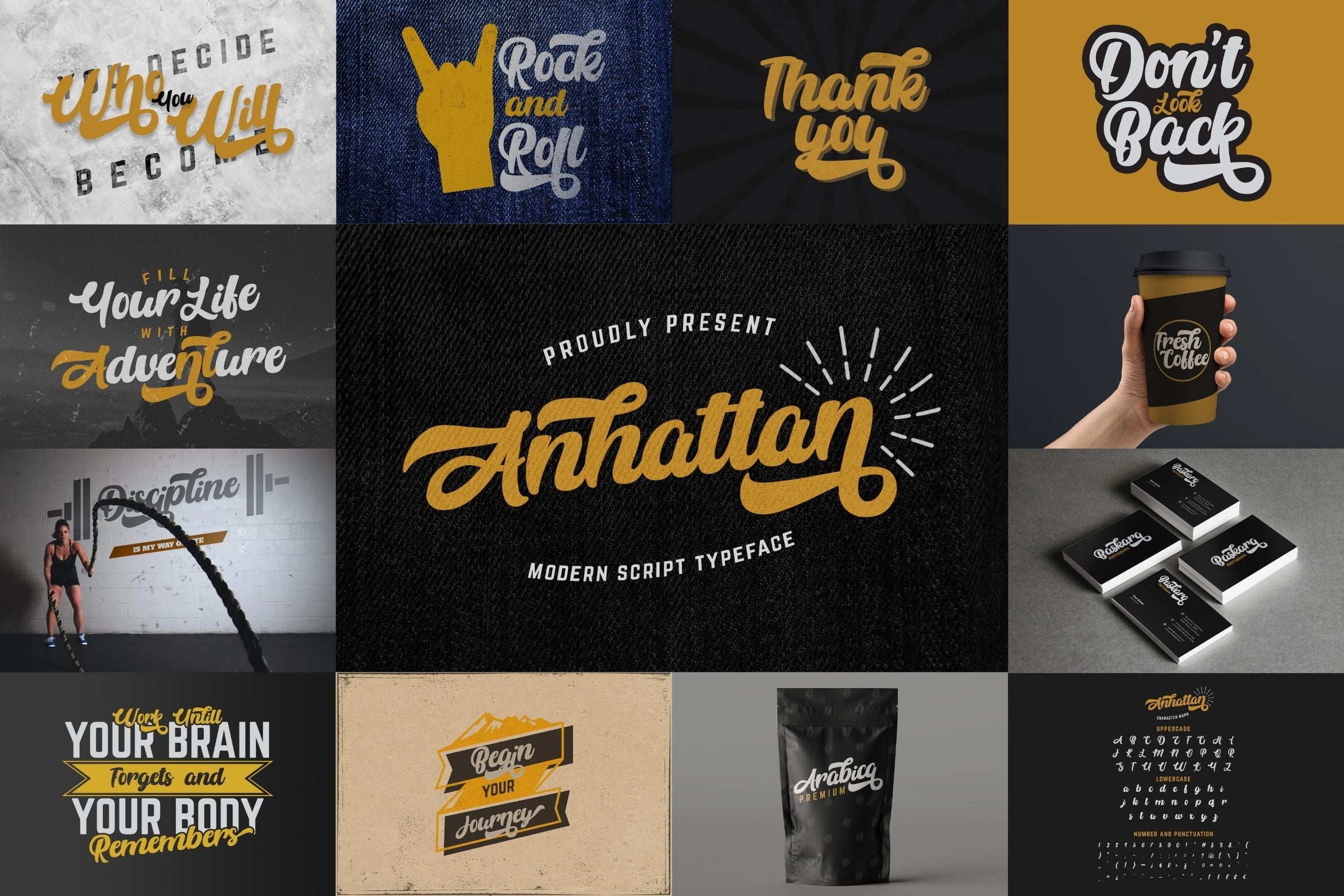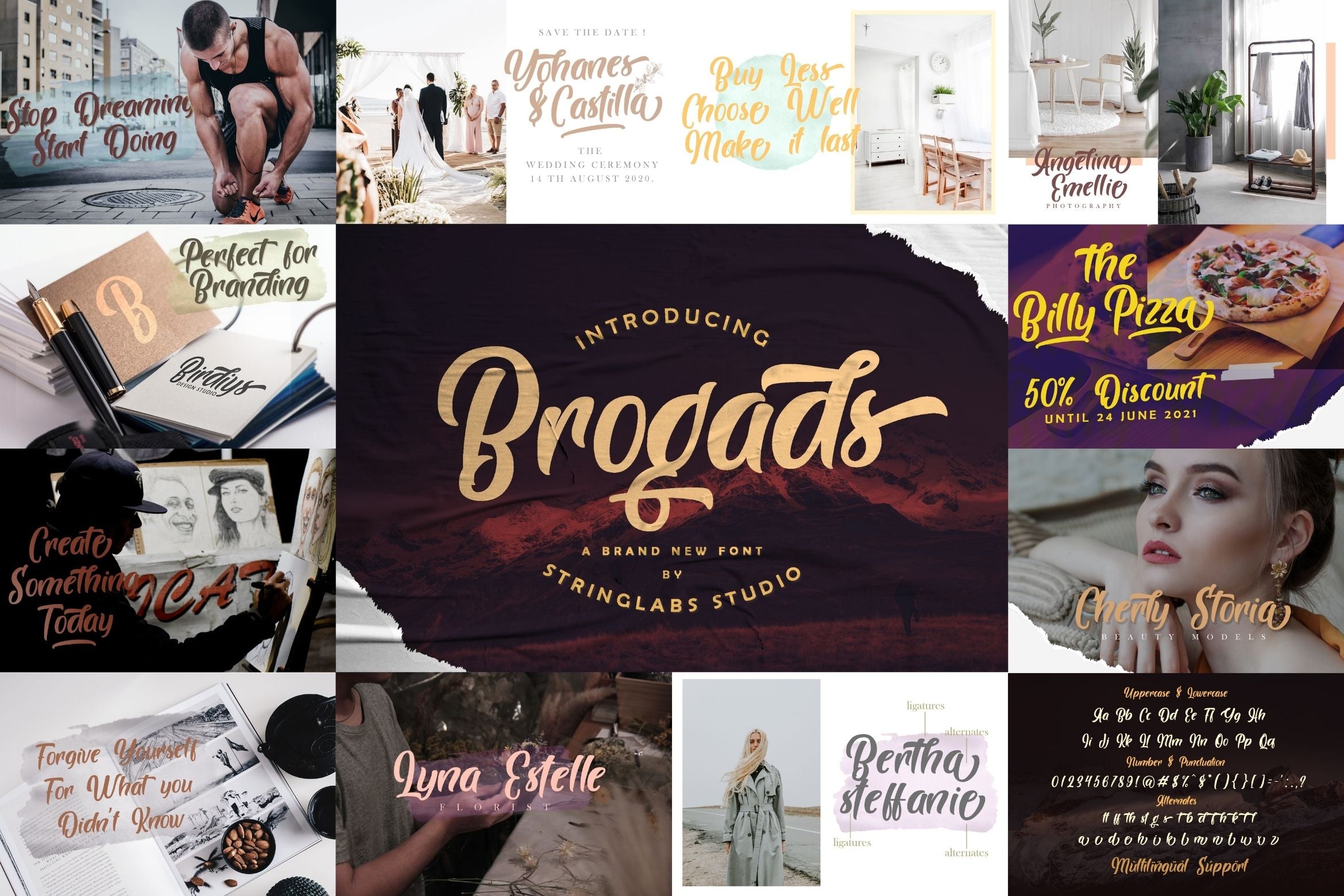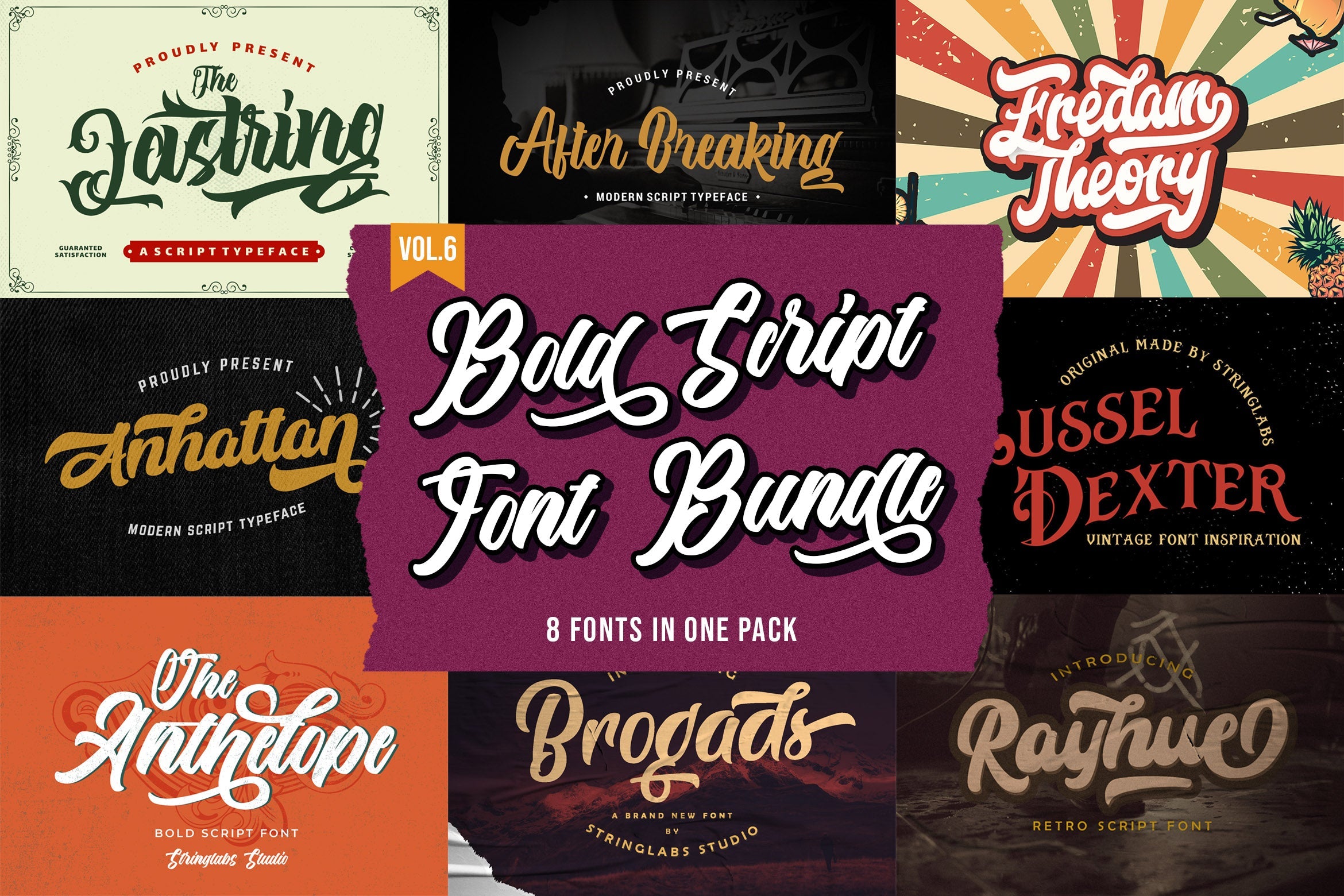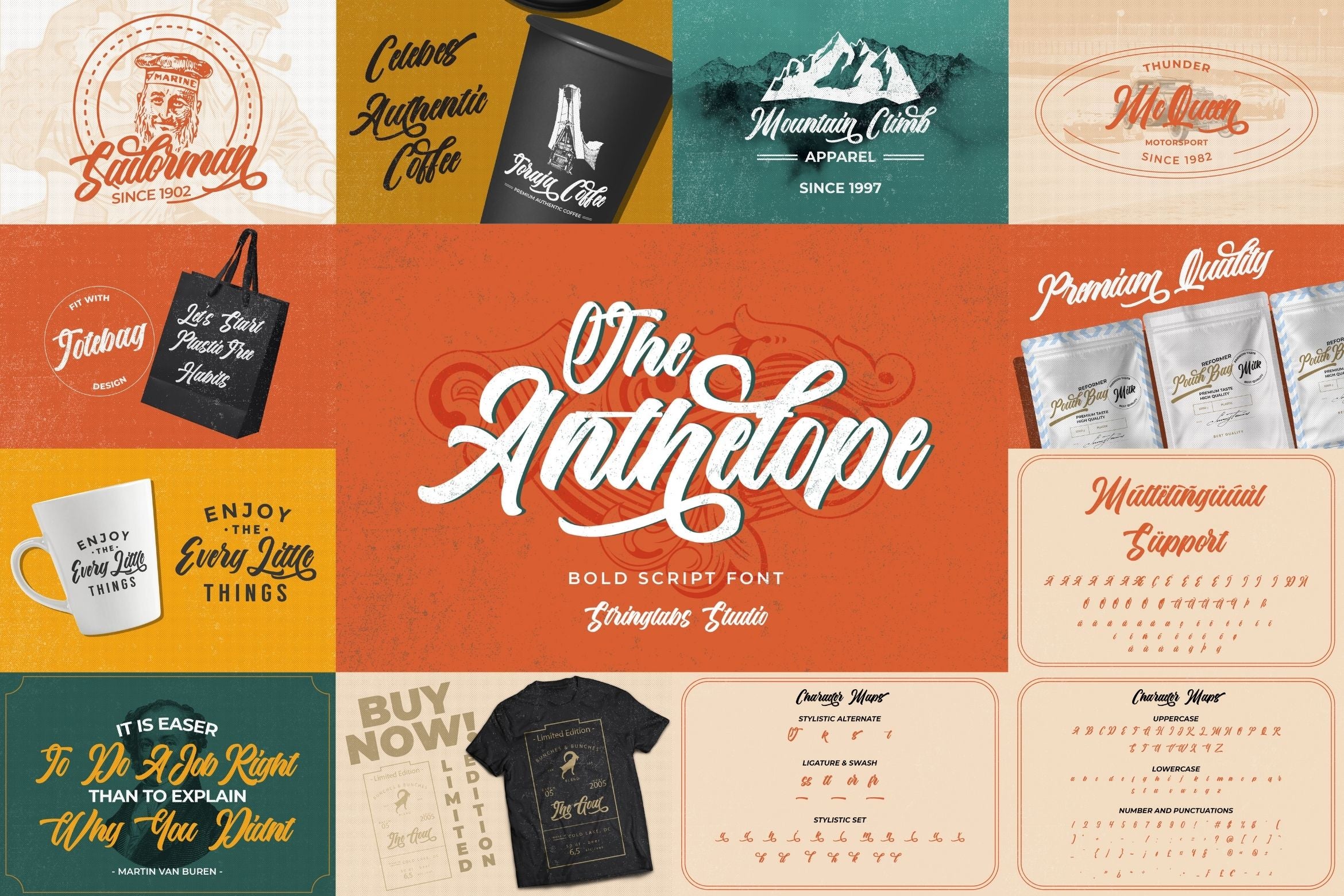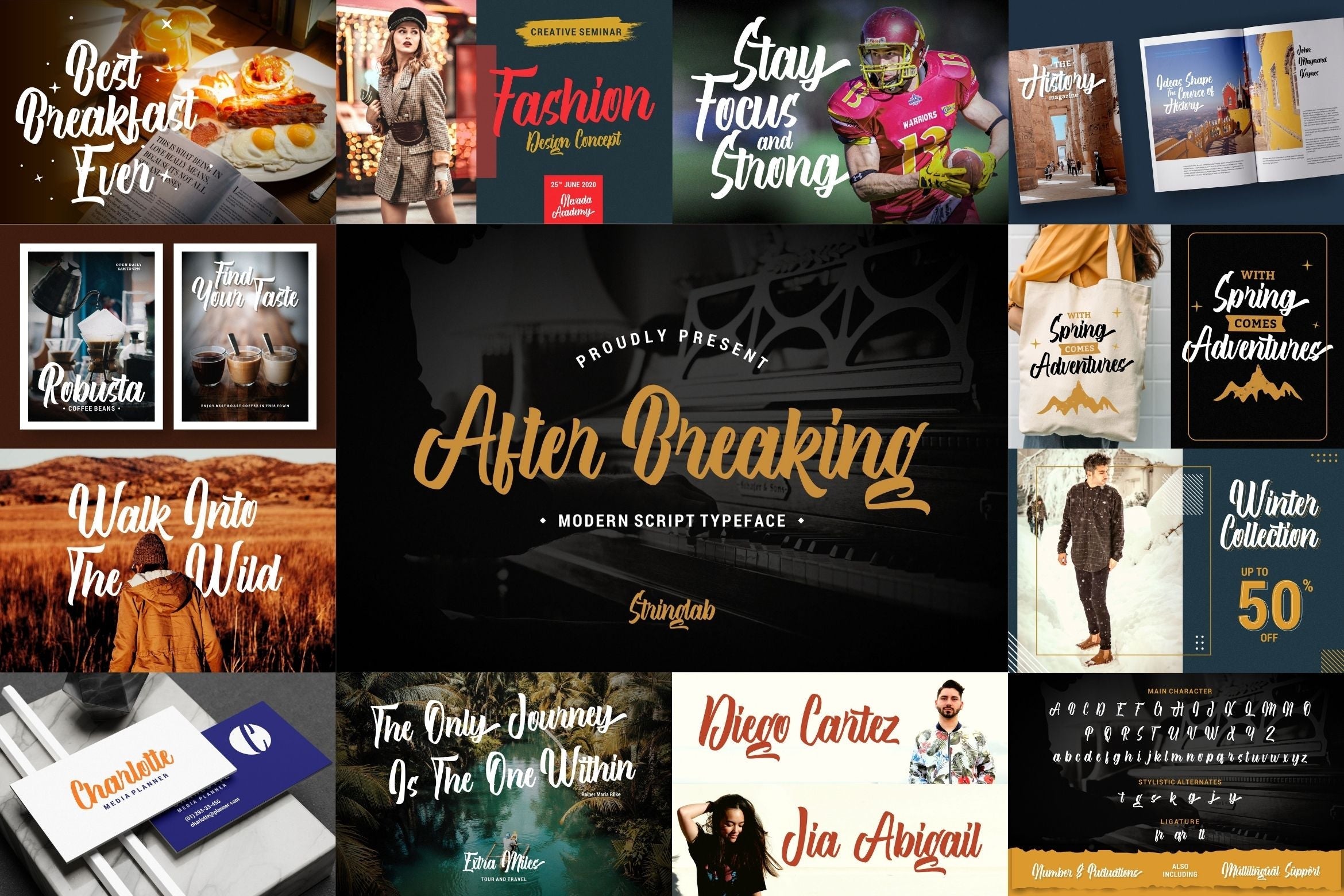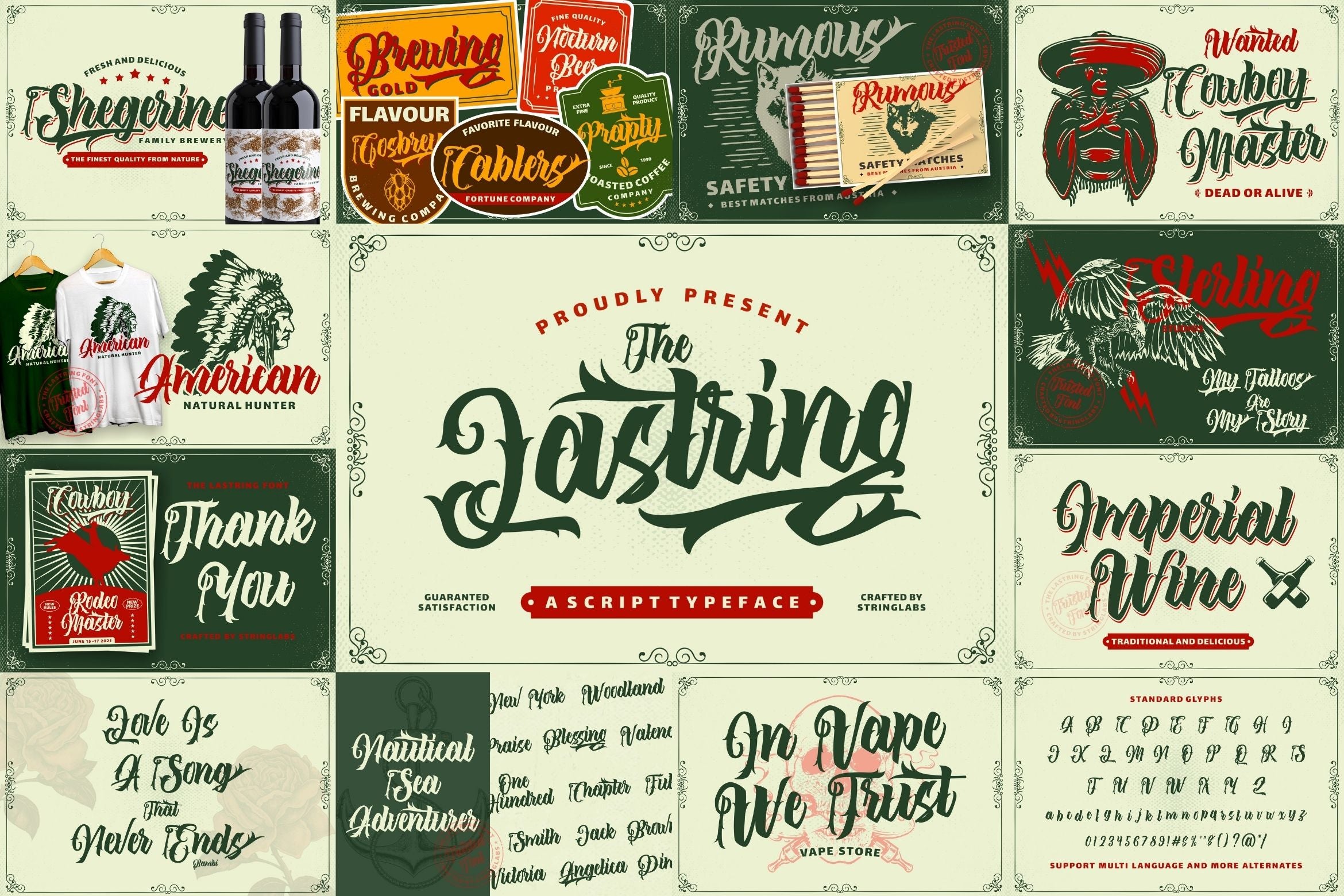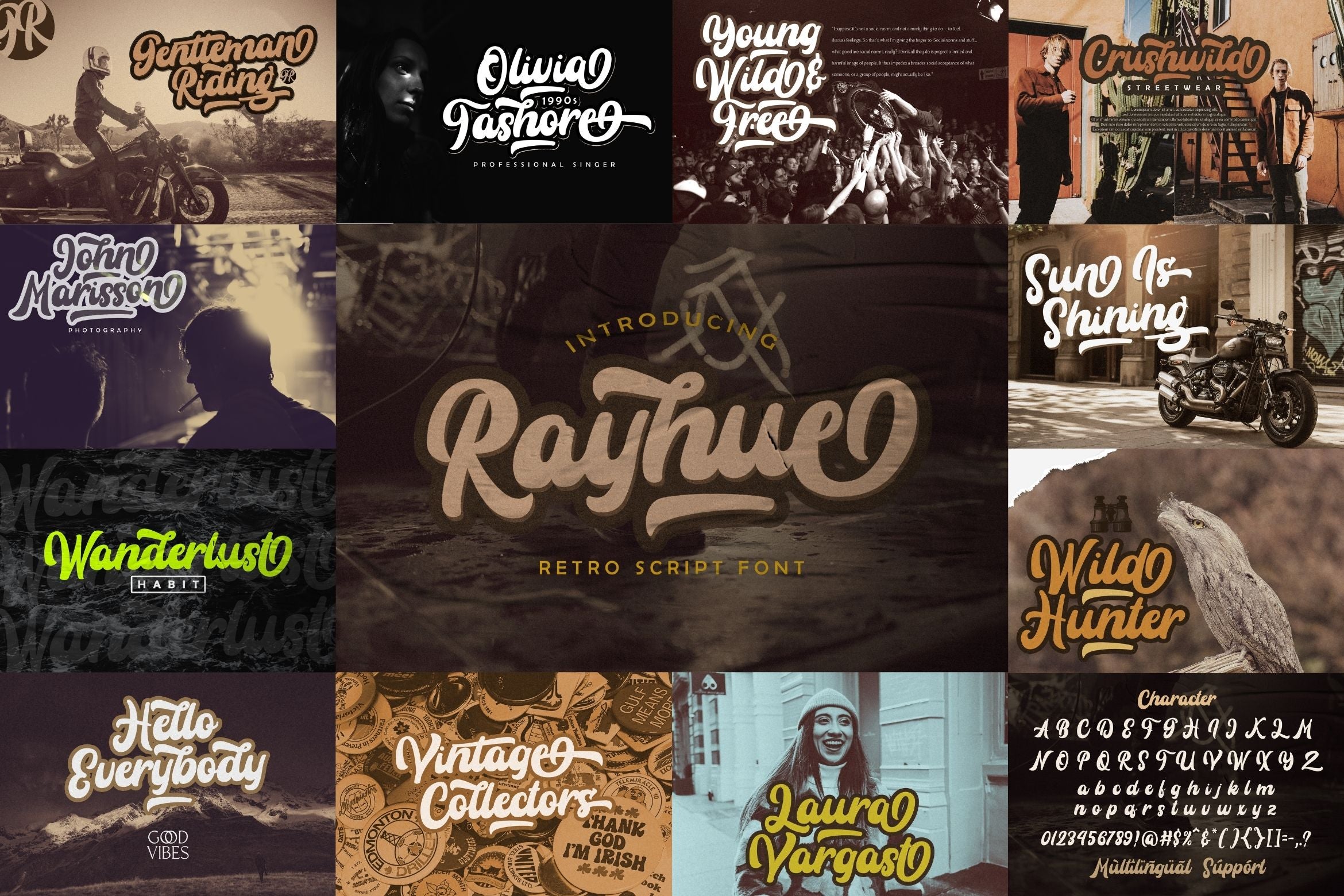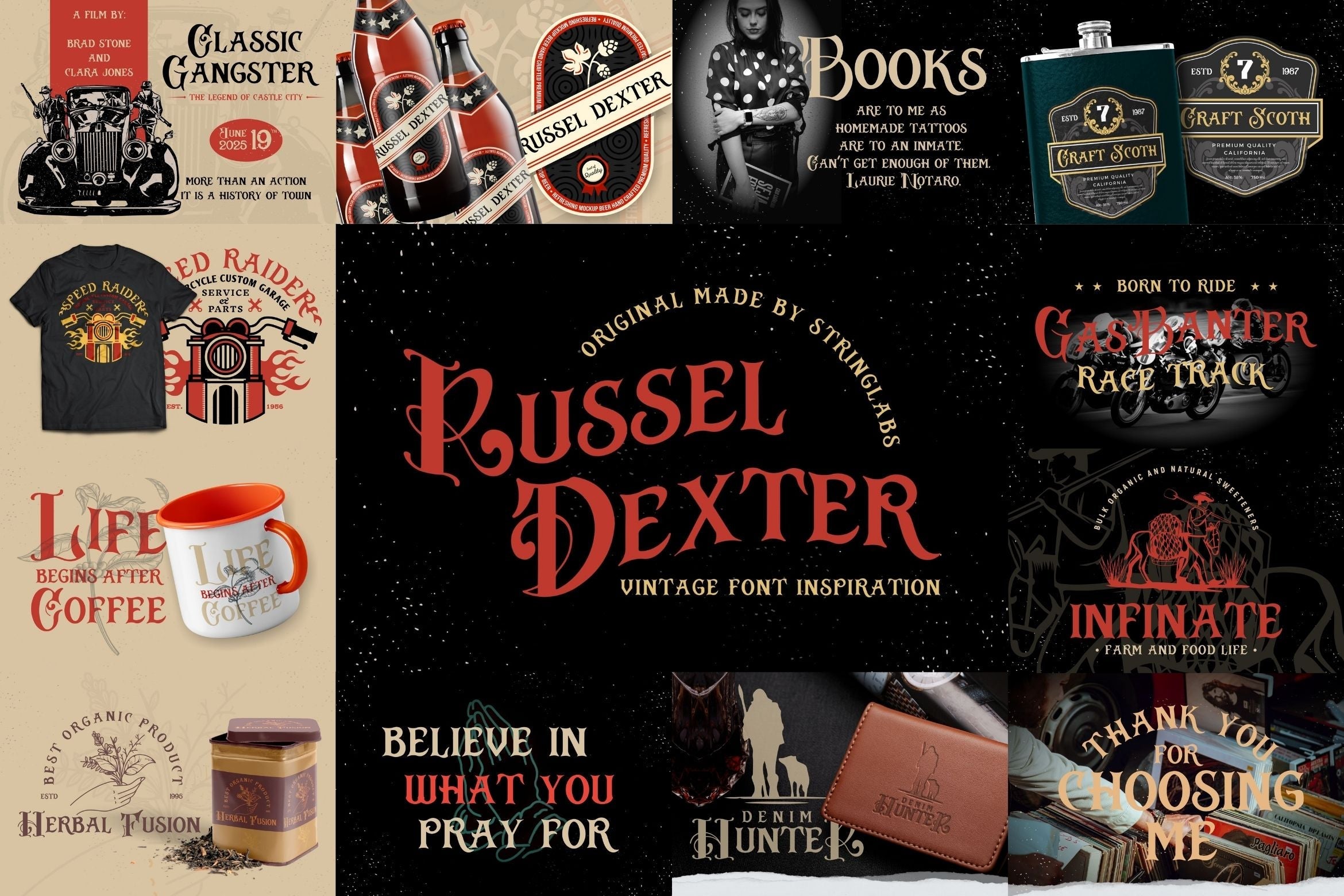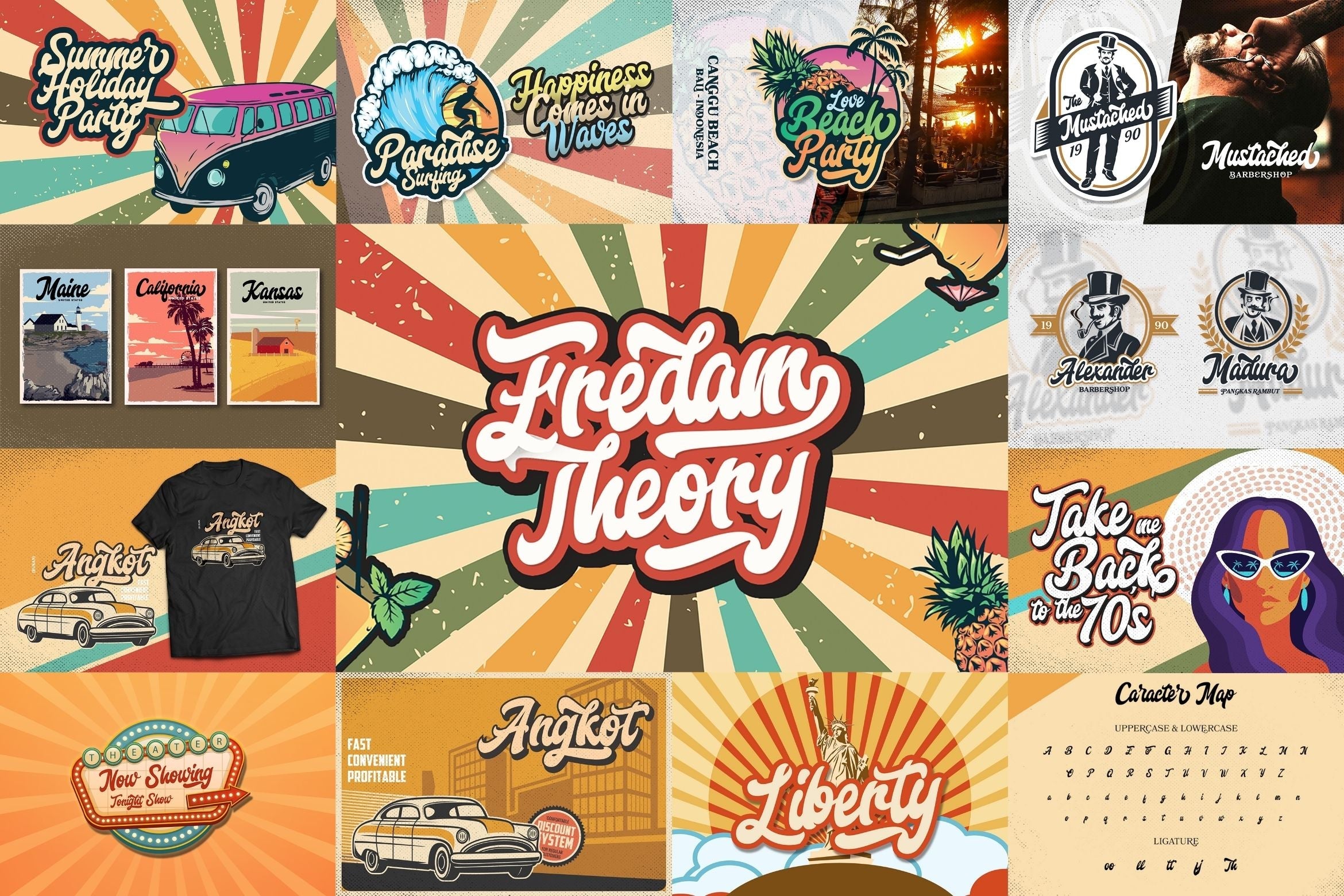
Bold Script Font Bundle Vol 6
About Bold Script Font Bundle Vol 6
Bold Script Font Bundle Vol 6 is a beautiful retro and vintage styled script font. This font bundle contains 8 high quality bold script font, It reads as strong, confident, and dynamic and can add tons of nostalgic character to your designs, and also that will look particularly adept when used in logos, branding, packaging design, and much more. It has beautiful and well balanced characters and as a result, it matches a wide pool of designs. Add it to your most creative ideas and notice how it makes them come alive! FONTS INCLUDED : 1. The Lastring 2. Russel Dexter 3. Rayhue 4. Fredam Theory 5. The Anthelope 6. Anhattan 7. Brogads 8. After Breaking Fonts available in format : OTF, TTF, WOFF, WOFF2